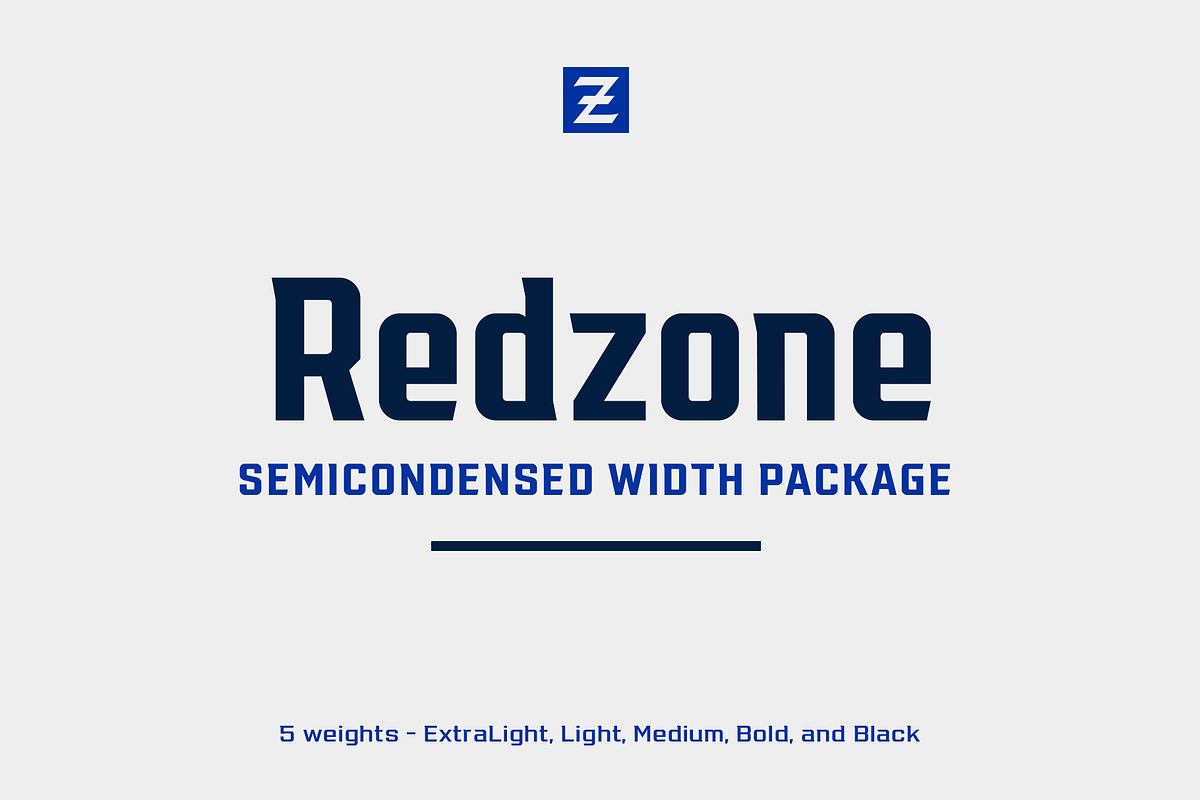
Redzone Display – SemiCondensed Font Free Download is a sleek, semi-condensed typeface designed for bold, modern projects. With its clean lines and tight spacing, this font is perfect for creating impactful headlines, posters, branding, logos, and more. Its semi-condensed structure makes it stand out while maintaining legibility, even in smaller sizes.
Redzone Display brings a contemporary, sharp aesthetic that works well for technology, sports, fashion, or any creative venture that requires a strong visual presence. The semi-condensed style adds a unique touch, making it ideal for designs that need to convey energy and professionalism.
Make your designs pop with the bold, modern appeal of Redzone Display!